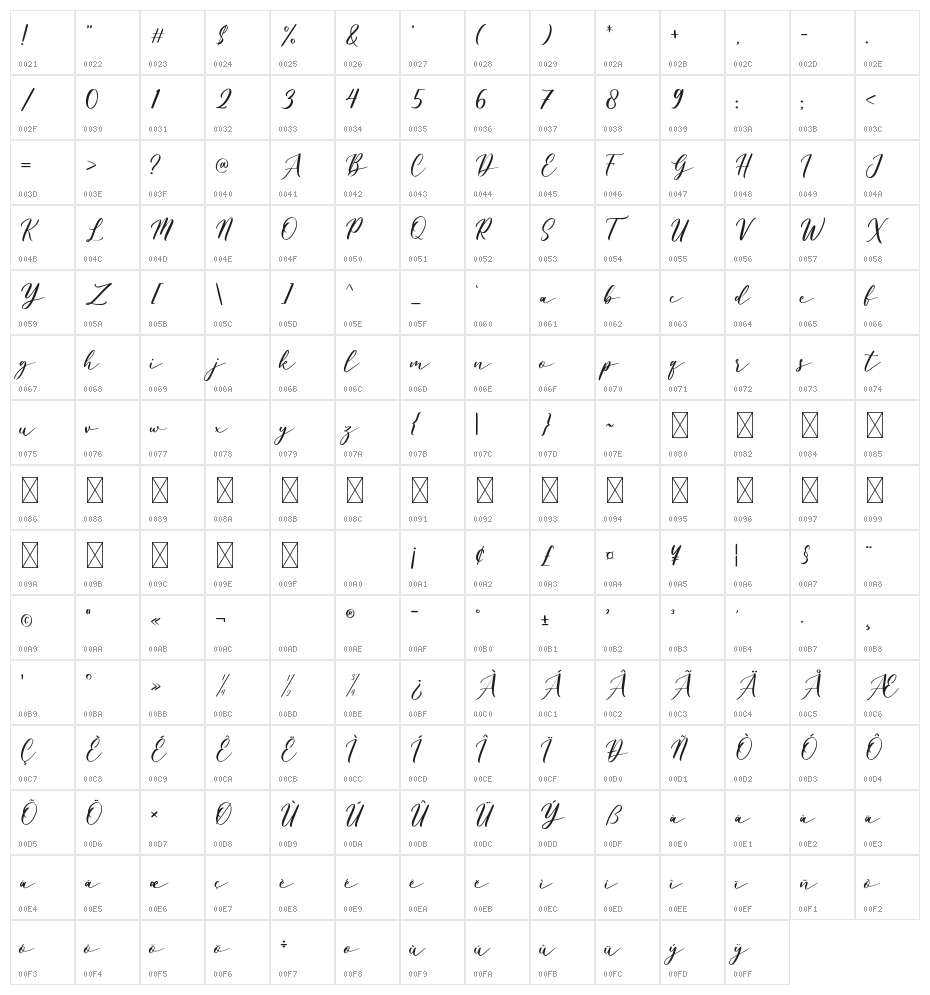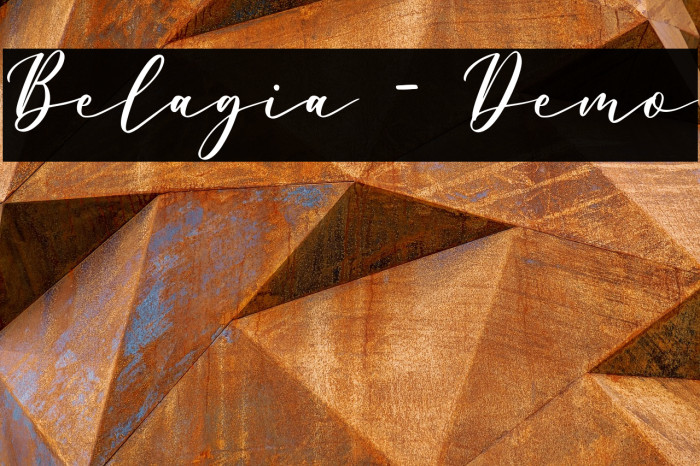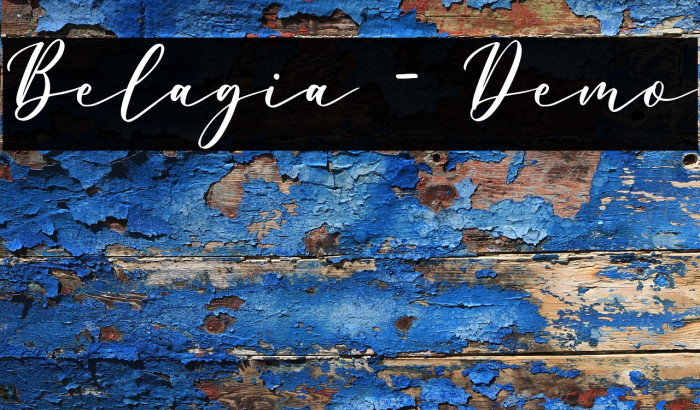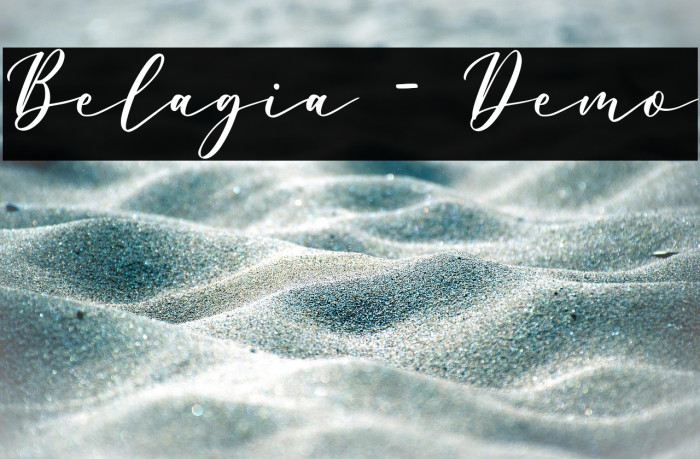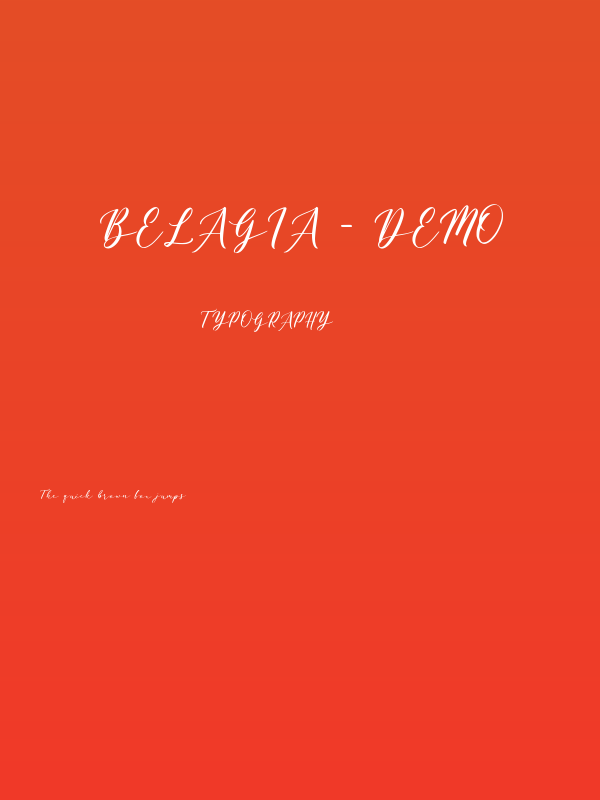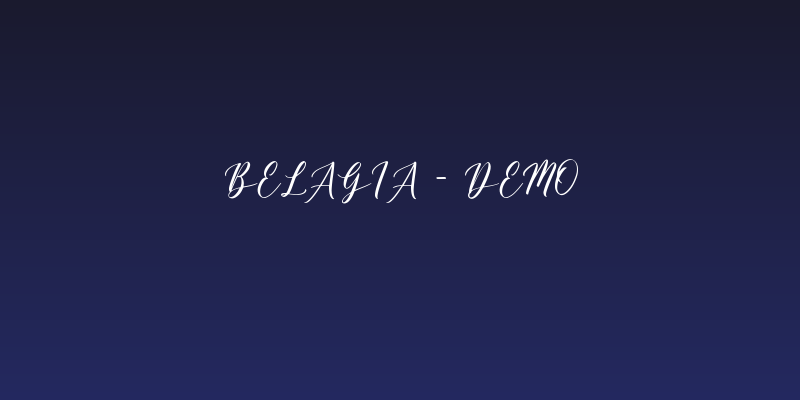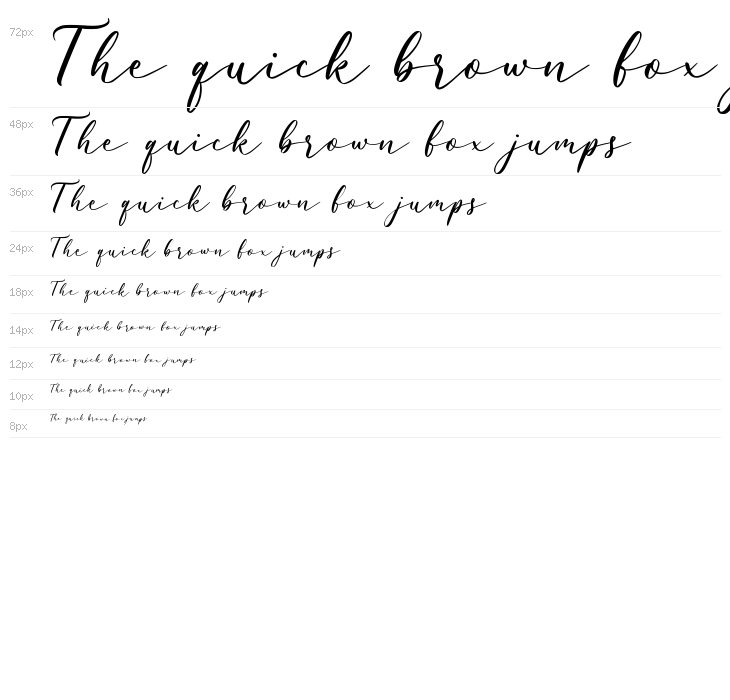
Belagia - Demo Font
Belagia - Demo Description
This elegant script font features fluid, cursive strokes that convey a sense of sophistication and grace. The uppercase letters are bold and sweeping, with intricate loops and flourishes that add a decorative touch. The lowercase letters maintain a consistent flow, with smooth connections between characters, enhancing readability while preserving the font's artistic flair. The numerals are stylish and cohesive with the overall design, and the special characters are crafted with the same attention to detail, making them suitable for various creative applications. This font is ideal for projects that require a personal, handwritten feel, such as invitations, branding, and editorial design.
Overall StyleElegant, Decorative
Use CaseInvitations, Branding, Editorial design
Proposed ProjectsIdeal for wedding invitations, branding, greeting cards, and editorial design.